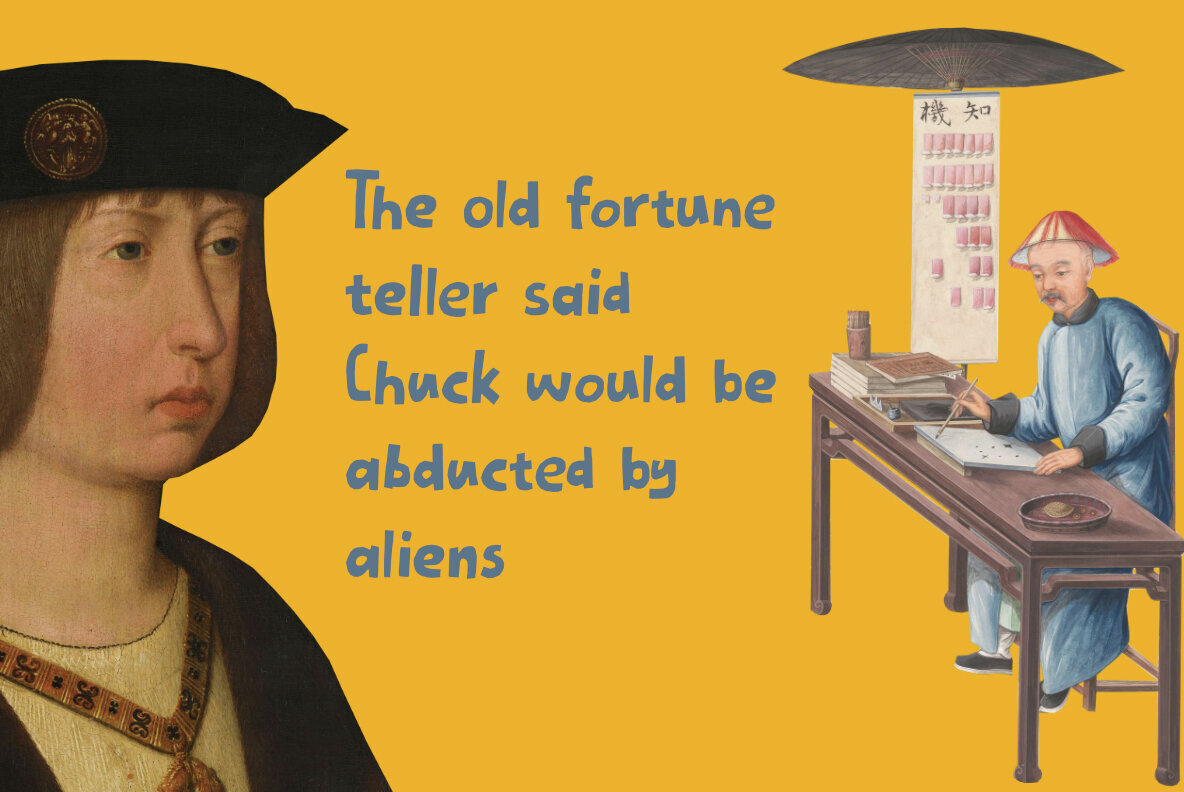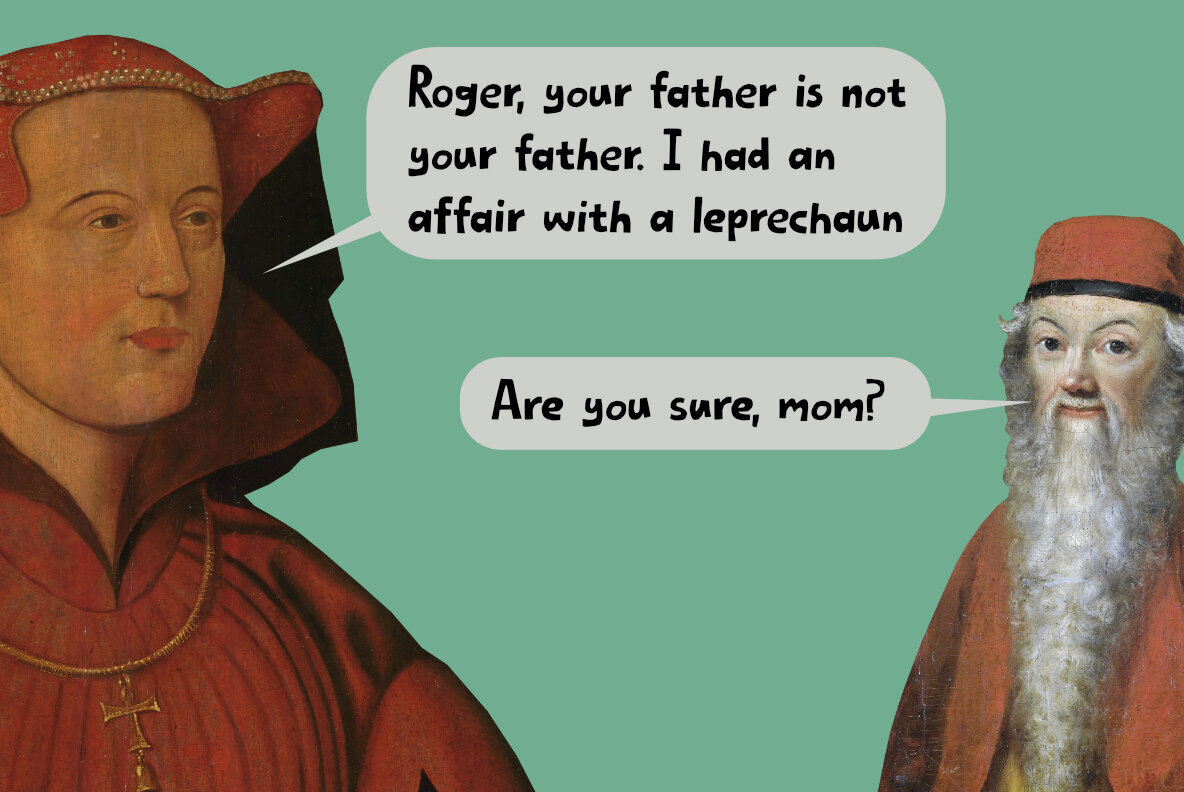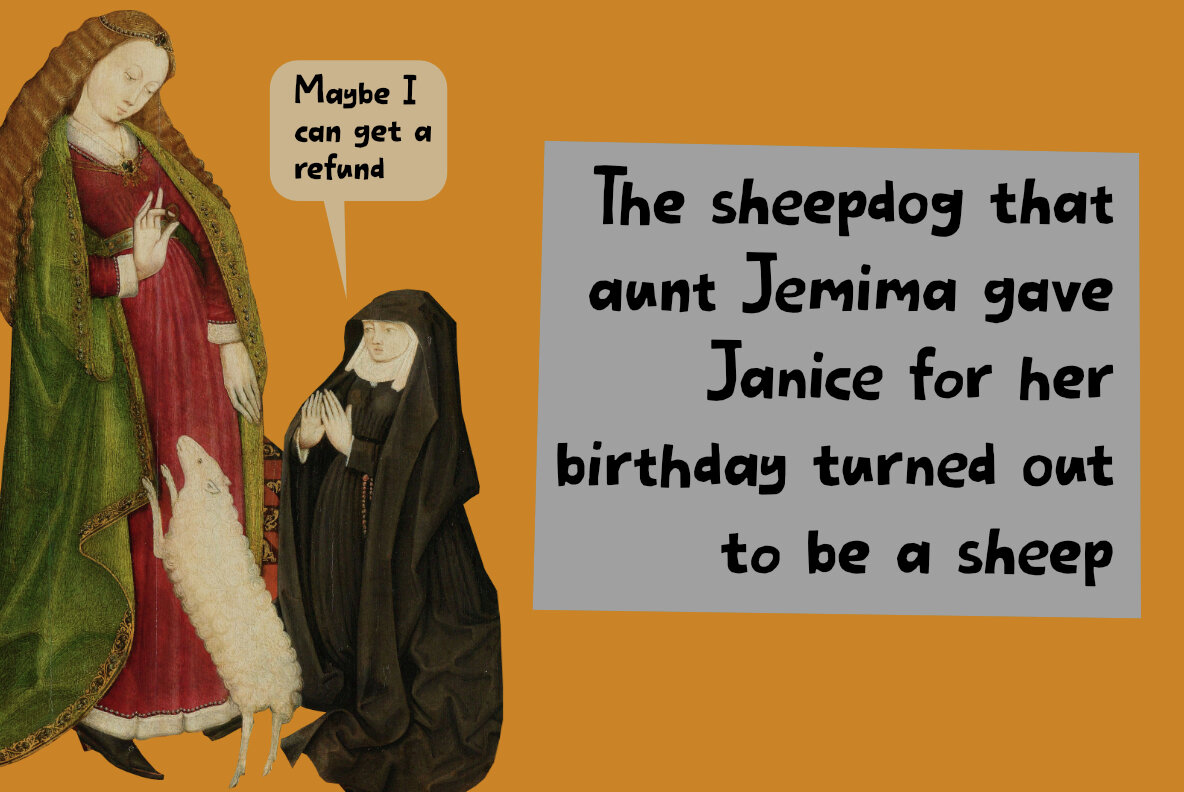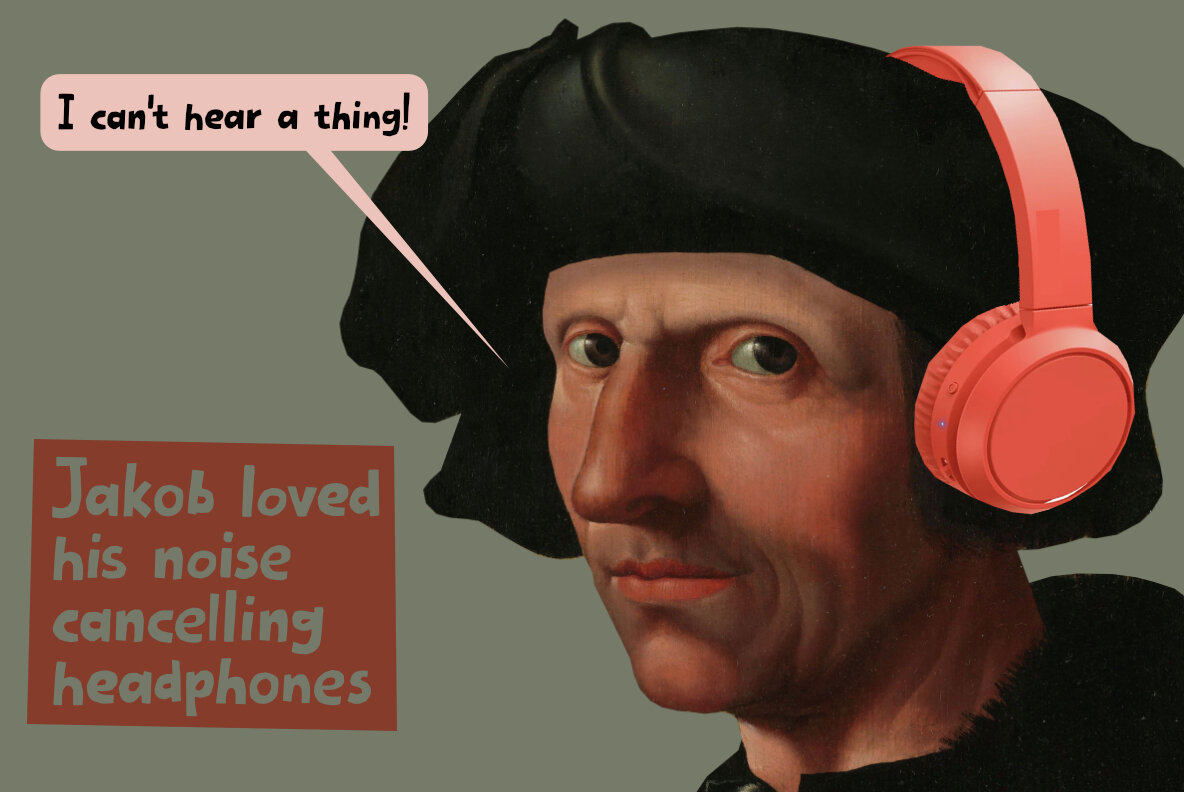
Goodbye Reality Font
Goodbye Reality Regular
Goodbye Reality Italic
I am not sure about you, but I sometimes think that reason and sanity are obsolete concepts these days, but maybe I am making too much of it and things will turn out to be ok. Fingers crossed! Goodbye Reality is a font I made by hand (fact checked!), using a roller ball pen and rough paper (I have proof!), while enjoying several cups of home-made, organic latte (with real milk) and some biscotti my wife baked (I have witnesses…). Comes with extensive language support and a set of alternates for the lower case glyphs.